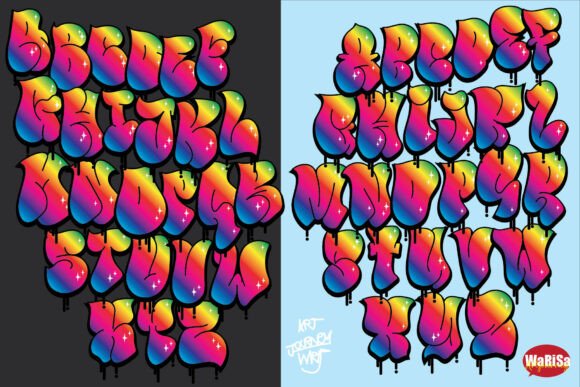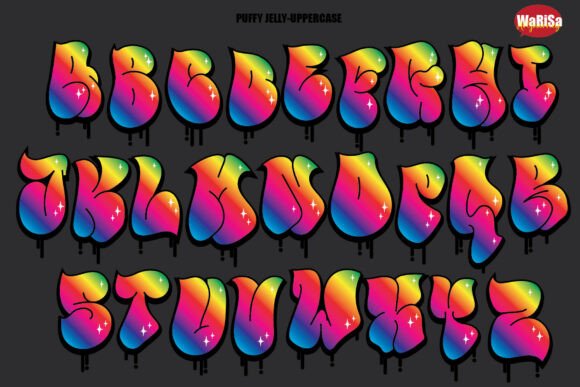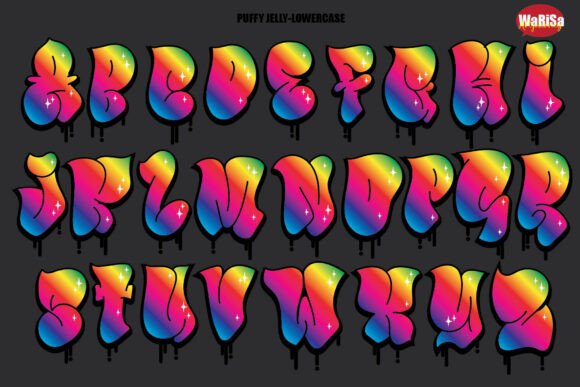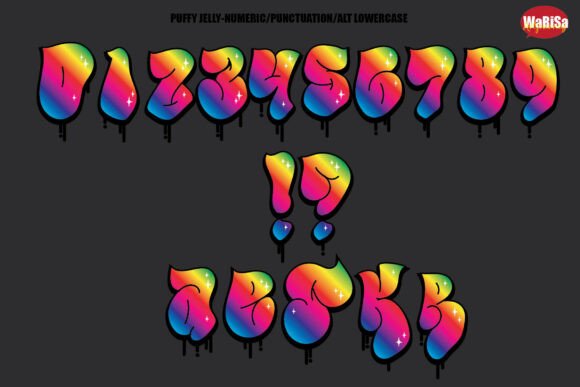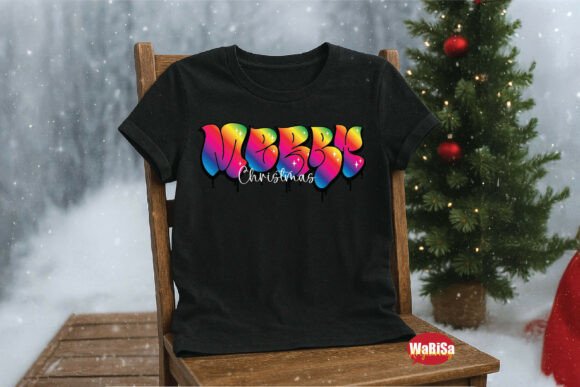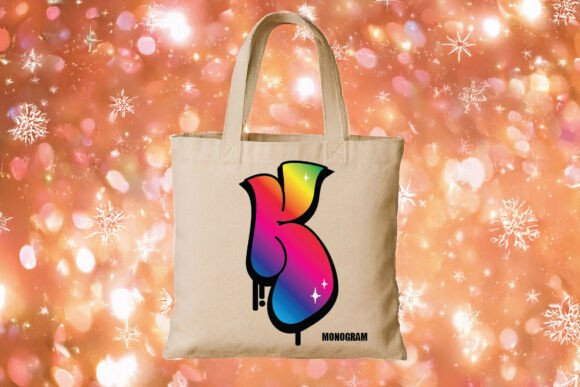
Introduction to Puffy Jelly Font
Explode with color and energy using the Puffy Jelly color font, a spectacular, graffiti-inspired display typeface that is bursting with vibrant, sparkling charisma.
The Puffy Jelly font is an advanced color font (OpenType-SVG) defined by its massive, bubbly, and drippy letterforms, characteristic of urban graffiti and throw-up style Its standout feature is the pre-applied, high-contrast, rainbow gradient fill combined with white sparkles, creating an incredible three-dimensional, โjellyโ effect that is instantly eye-catching.